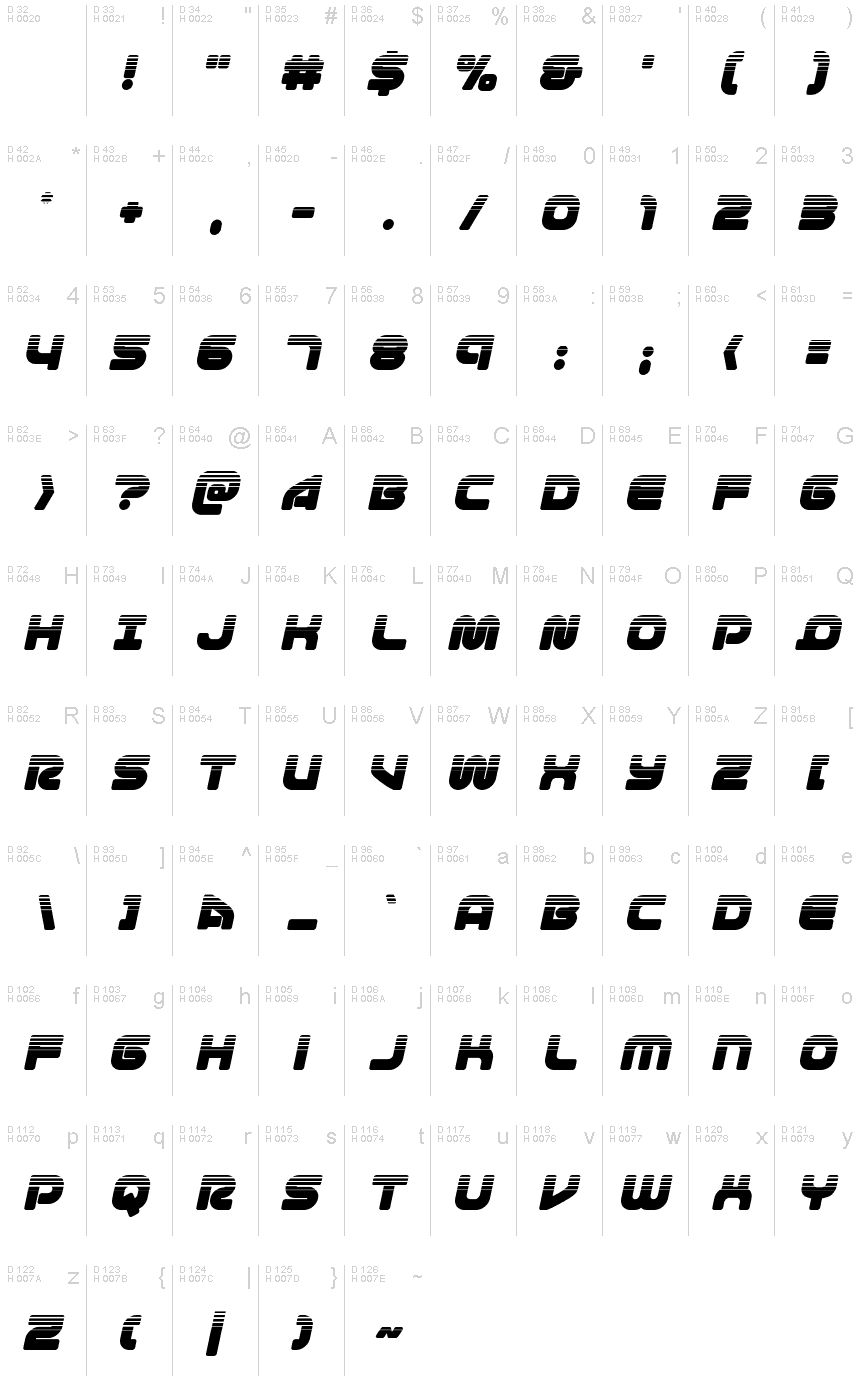
1st Enterprises Halftone Ital
1st Enterprises Halftone Italic, a captivating addition to the 1st Enterprises font family, designed by Iconian Fonts. This display font boasts a futuristic style with its bold weight and expanded width, making it perfect for a wide range of projects. Its edgy and modern aesthetic adds an avant-garde touch to logos, branding materials, and product packaging. With its unique halftone effect and italicized letterforms, this font is ideal for sci-fi movie titles, tech websites, gaming interfaces, or any creative endeavor that demands a cutting-edge look. Illuminate your designs with the striking allure of 1st Enterprises Halftone Italic.